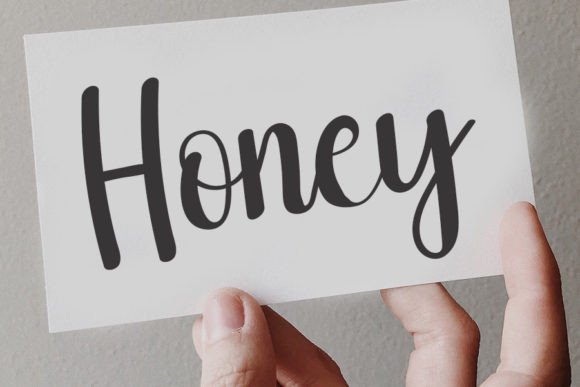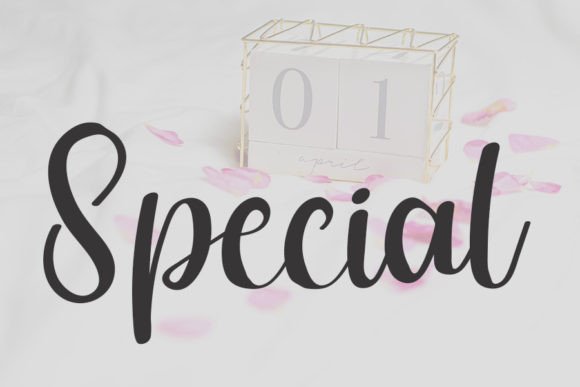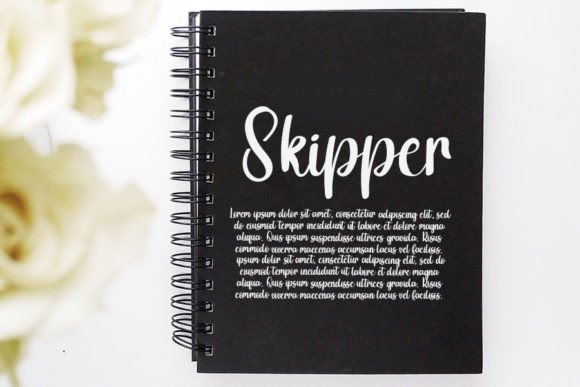
About Creative Font
Creative is a cool handwritten font with a modern vibe and spotless form, inspired by classic calligraphy. Not too thin and not too thick, balanced and varied, this font was designed to enhance the beauty of your projects.